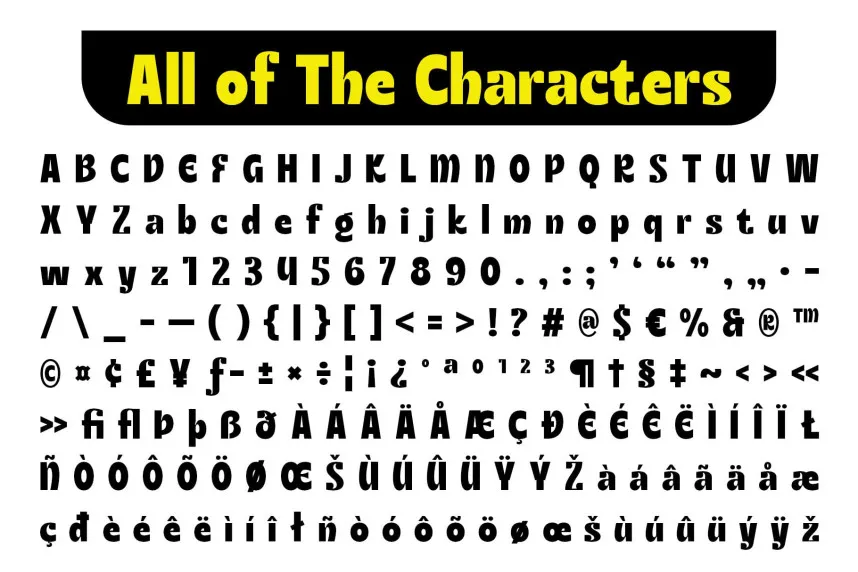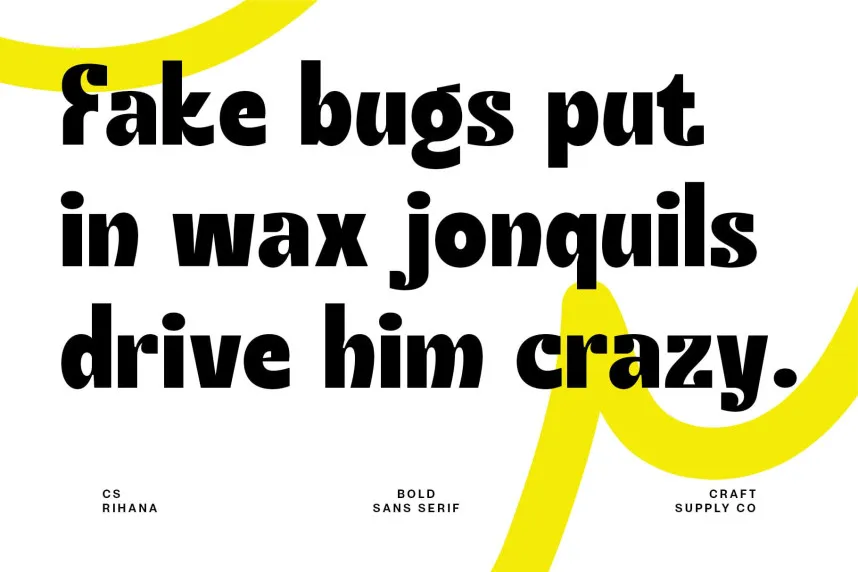
CS Rihana Font
CS Rihana Font is a stylish and creative typeface designed to bring a modern touch to your projects. It has a smooth and clean appearance
About This Font
CS Rihana Font is a stylish and creative typeface designed to bring a modern touch to your projects. It has a smooth and clean appearance that makes it stand out while remaining easy to read.
The font is suitable for anyone looking to add beauty and clarity to their designs without making them look too complex.
One of the best things about CS Rihana Font is its versatility. You can use it for many purposes such as posters, social media graphics, invitations, branding, and even website text.
Its design works well in both small and large sizes, which means it looks great on screens as well as in print.The font has a friendly and professional feel at the same time.